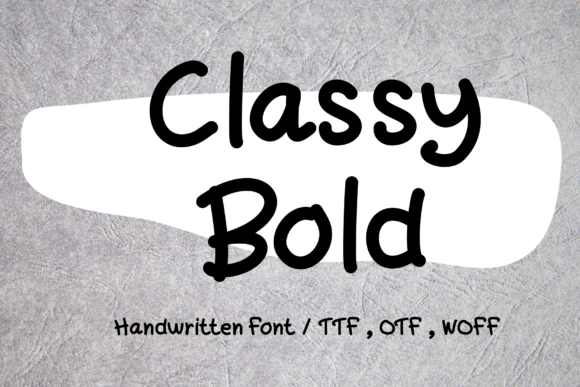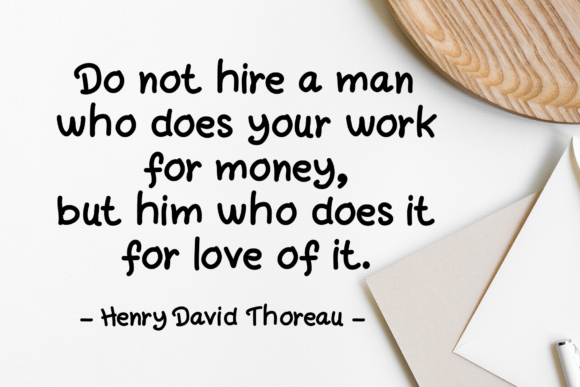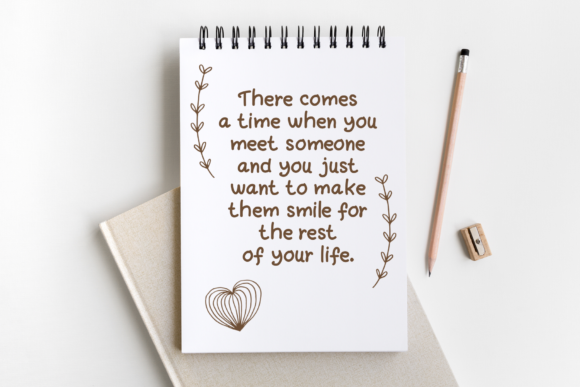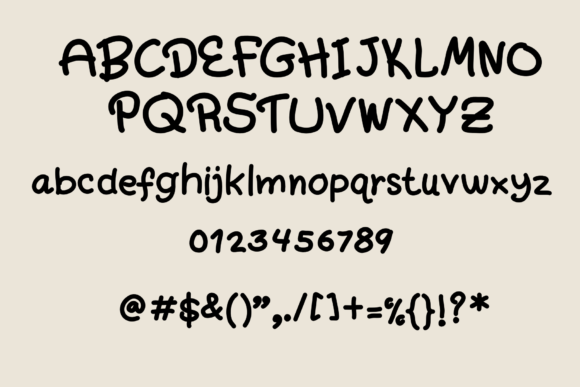
Classy Bold Font
About Classy Bold Font
Classy Bold is a handwritten font. With it timeless style, this typeface is perfect for logos, branding, greeting cards, posters, magazines, social media posts, planner prints and websites.